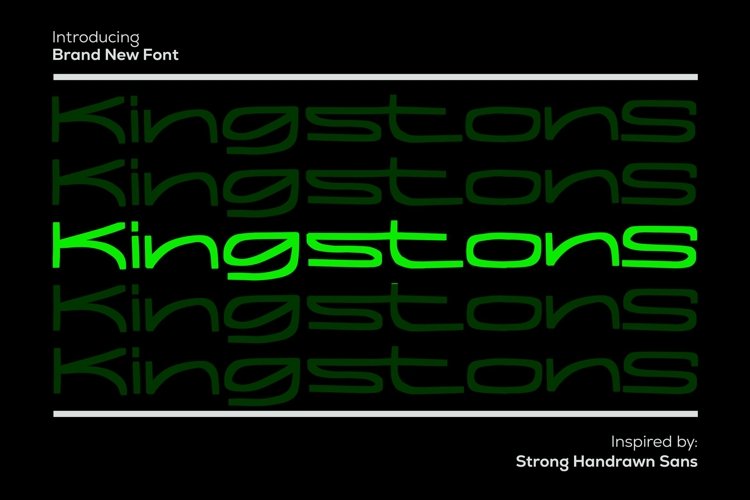
Kingstons - Handrawn Sans Font that contain lowercase, uppercase, symbol, and also support multi language. There’s a lot ligatures in this font. This Font also comes with ligatures, alternates and many more. this font suitable for fashion, branding, catalog and other design what you want.